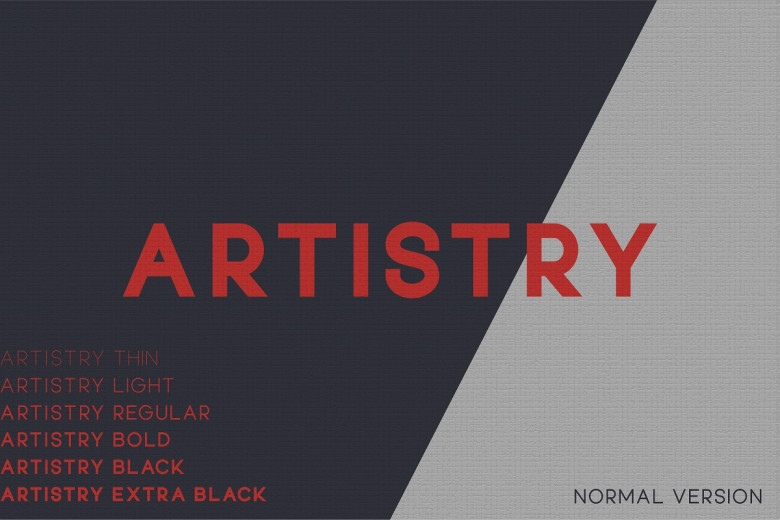
Artistry Font
Artistry font family exudes elegance and minimalism, combining luxury and modernity in six weights of sans serif typeface. Crafted with precision, its craftsmanship enhances any project such as film posters, magazines or logos with its timeless charm radiating timeless appeal. Behold the power of this font family today.
Artistry Sans Serif Font